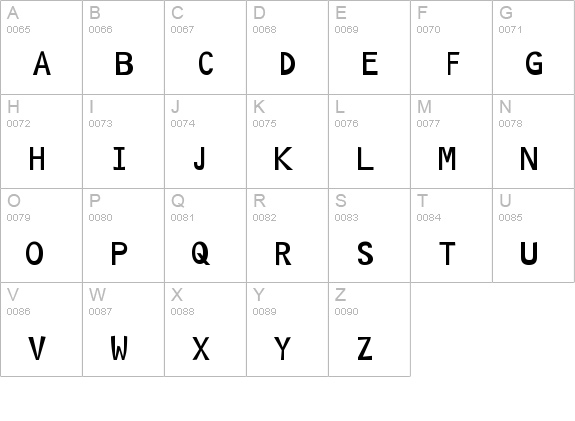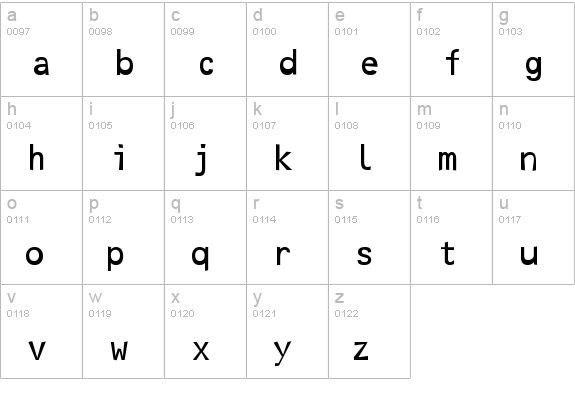
Hoptical Font Details
Hoptical font is a modern and stylish typeface that exudes sophistication and creativity. Its sleek lines and elegant curves make it perfect for a wide range of design projects, from branding to editorial design. With a contemporary yet timeless aesthetic, Hoptical font captures attention and adds a touch of class to any project. The best part is that Hoptical font is available for free download at FontsMarket.com. This means you can easily access this high-quality font and use it in your designs without any cost. Whether you're a professional designer looking for a versatile typeface or a hobbyist experimenting with typography, Hoptical font is a fantastic choice that won't break the bank. Download Hoptical font today and elevate your designs with its unique charm and sophistication.